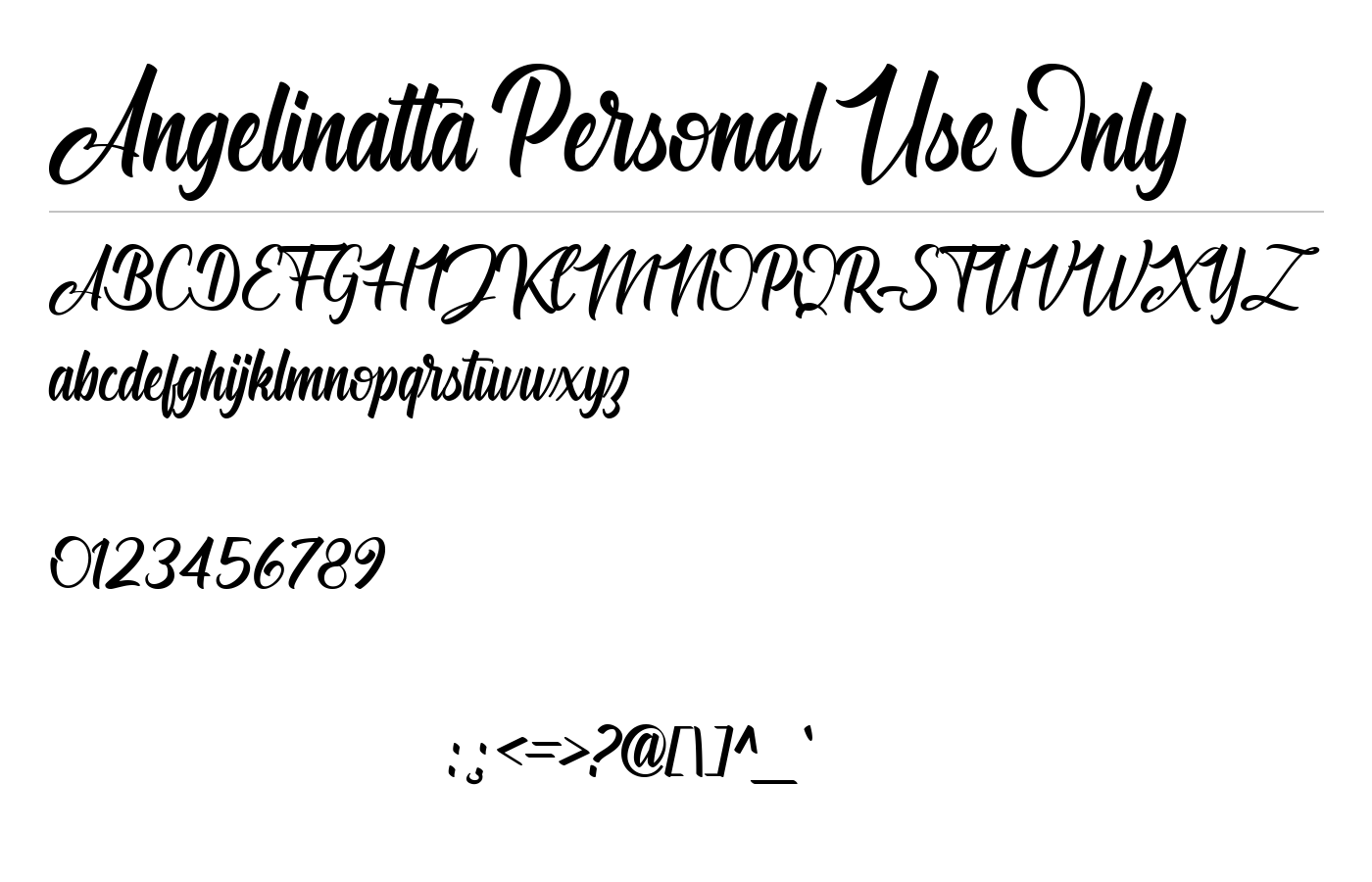
Angelinatta Personal Use Only is a stylish script font with elegant, flowing strokes and a lively, handwritten feel. Its medium weight and smooth curves make it perfect for adding a feminine, sophisticated touch to invitations, branding, or elegant headlines. This font works well where a personal, graceful aesthetic is desired, lending beauty and charm without sacrificing readability.
Angelinatta Personal Use Only Font
About Angelinatta Personal Use Only Font
| Font family | Angelinatta Personal Use Only Font |
| Designer | Ahmad Rofingi |